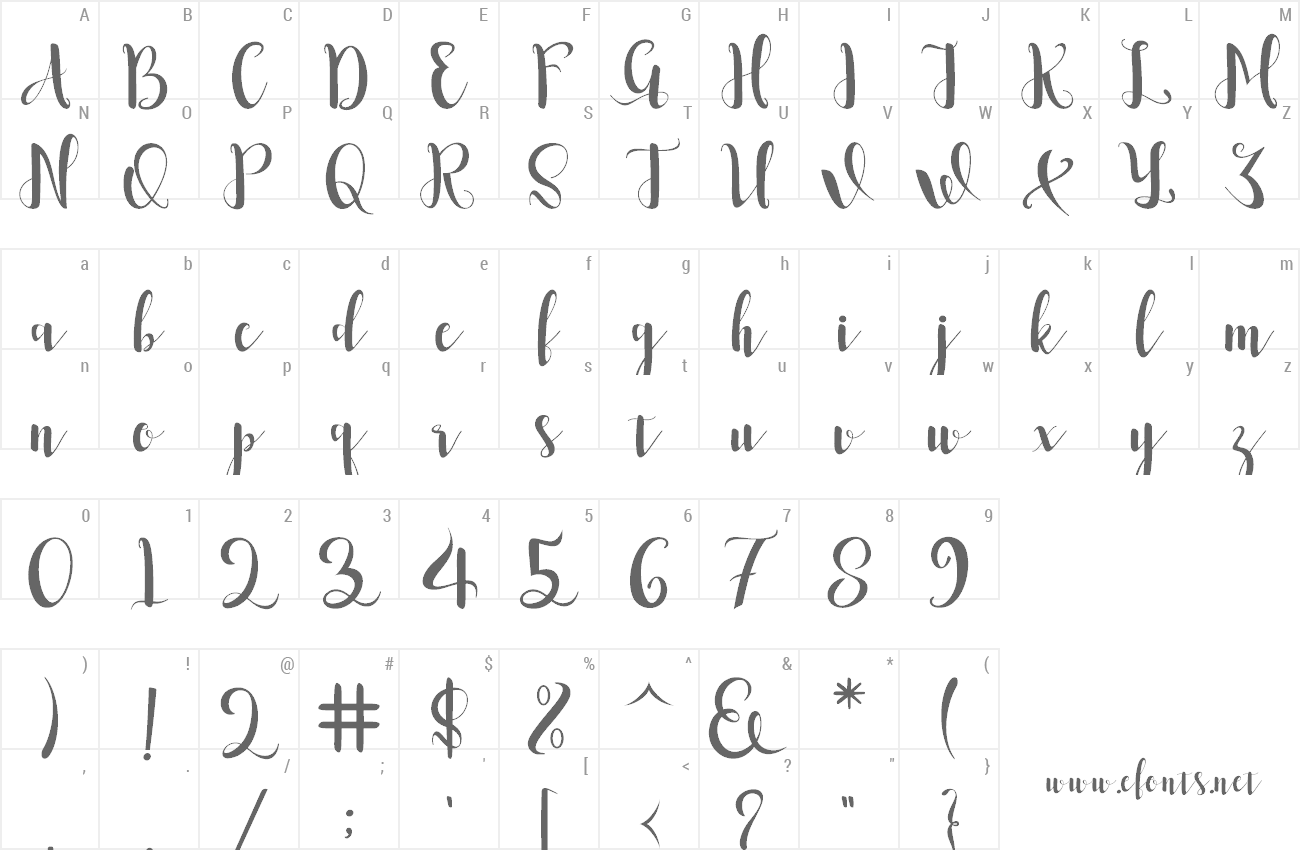
| Font name: | Romantis Script |
| Author: | FadeLine Std. |
| Note by FadeLine Std. | |
Hi Designer! Romantis Script, connecting script, designed to convey elegance and style. Romantis Script will work perfectly for fashion, e-commerce brands, trend blogs, or any business that wants to appear classy and chic. This font is free for just Personal use Link to download full version : https://crmrkt.com/d1Ga2B Visit my store for more great fonts: https://creativemarket.com/fadeline Thank you! |